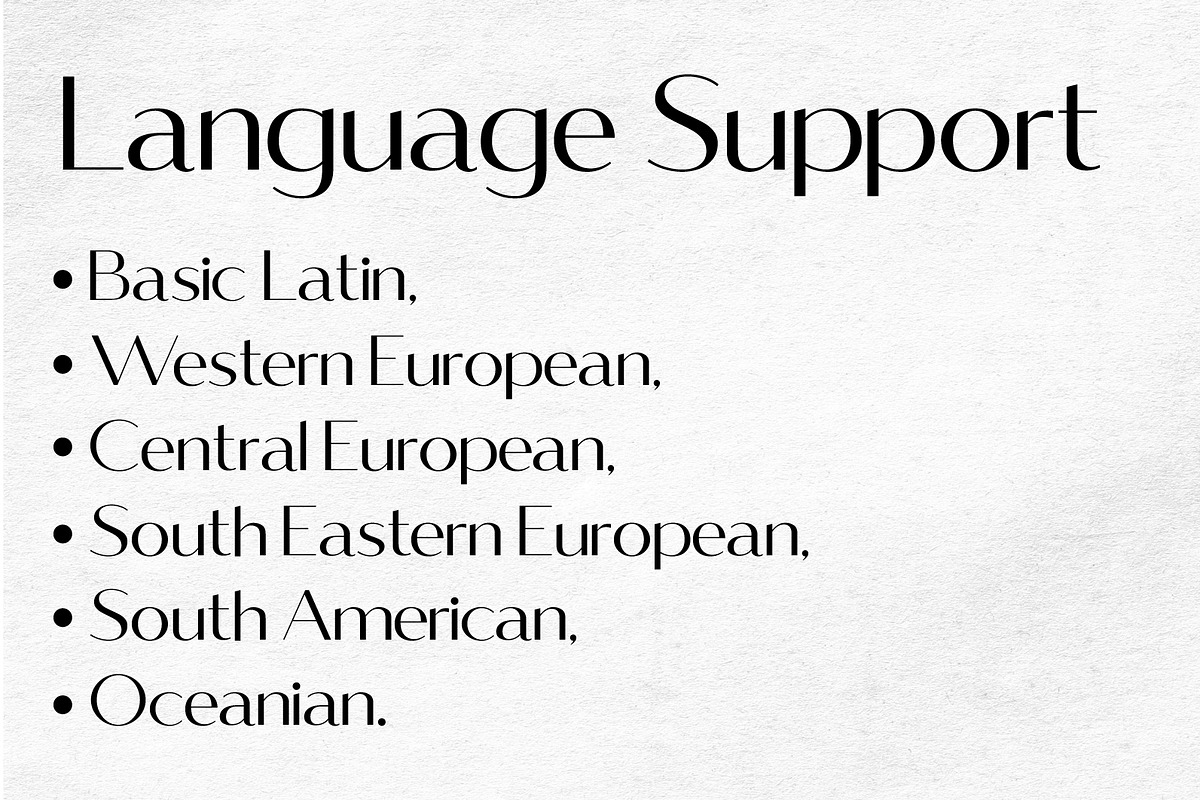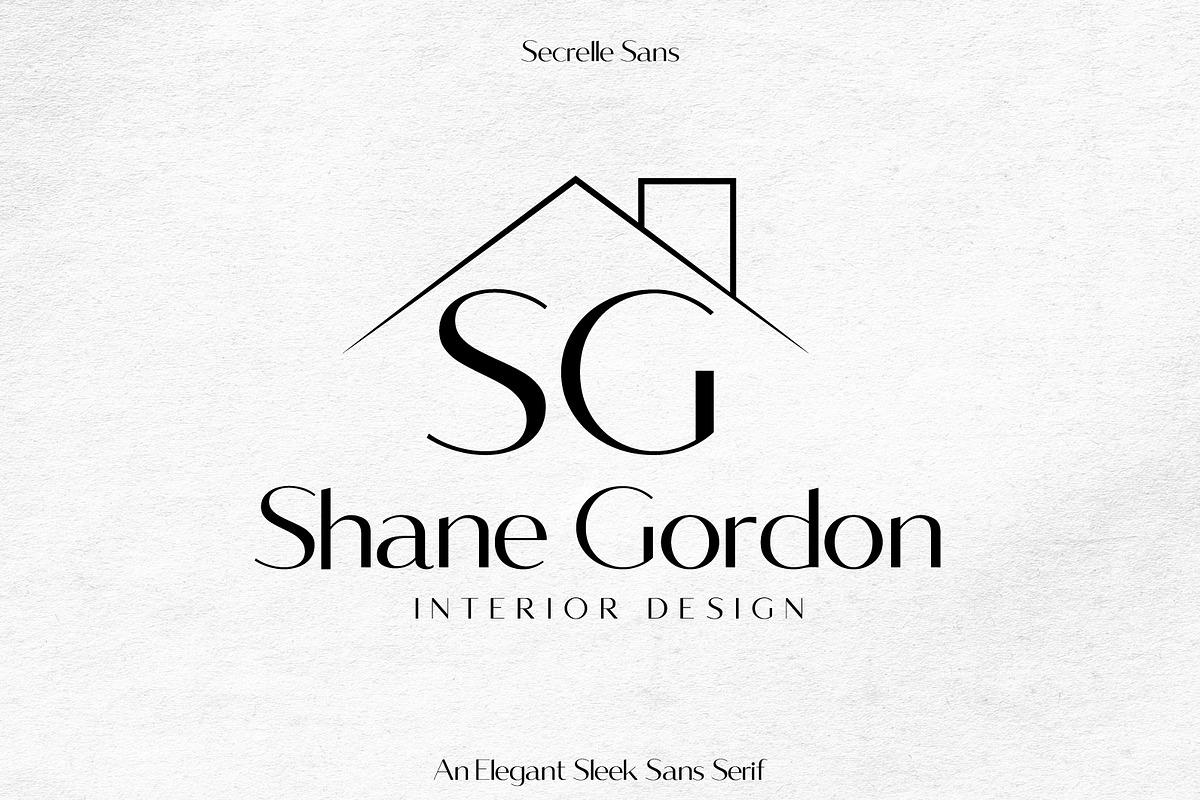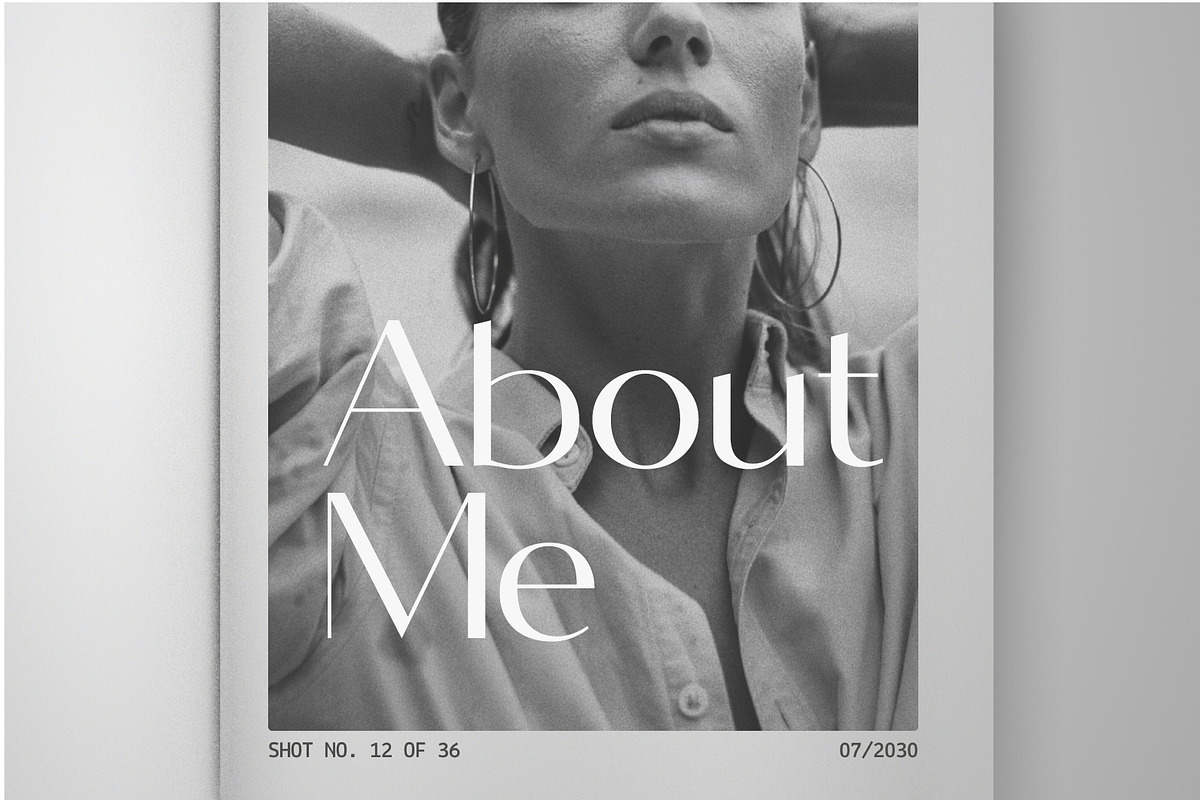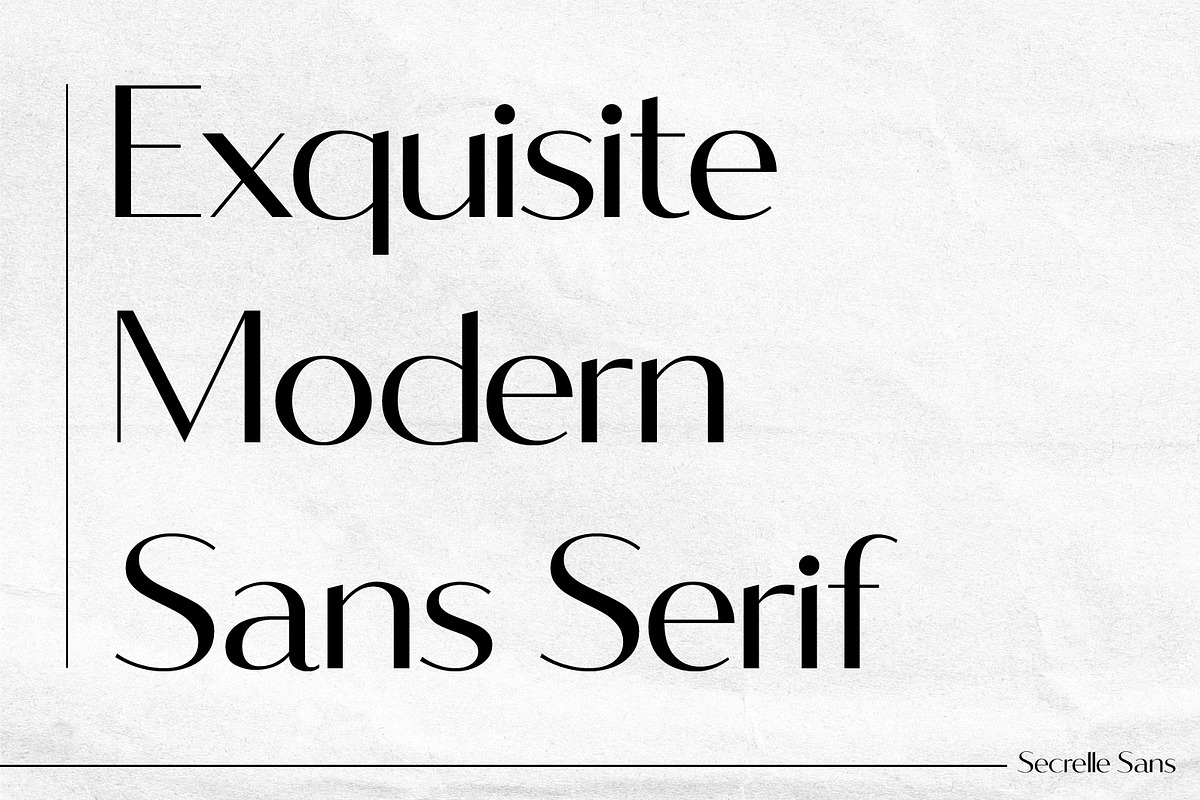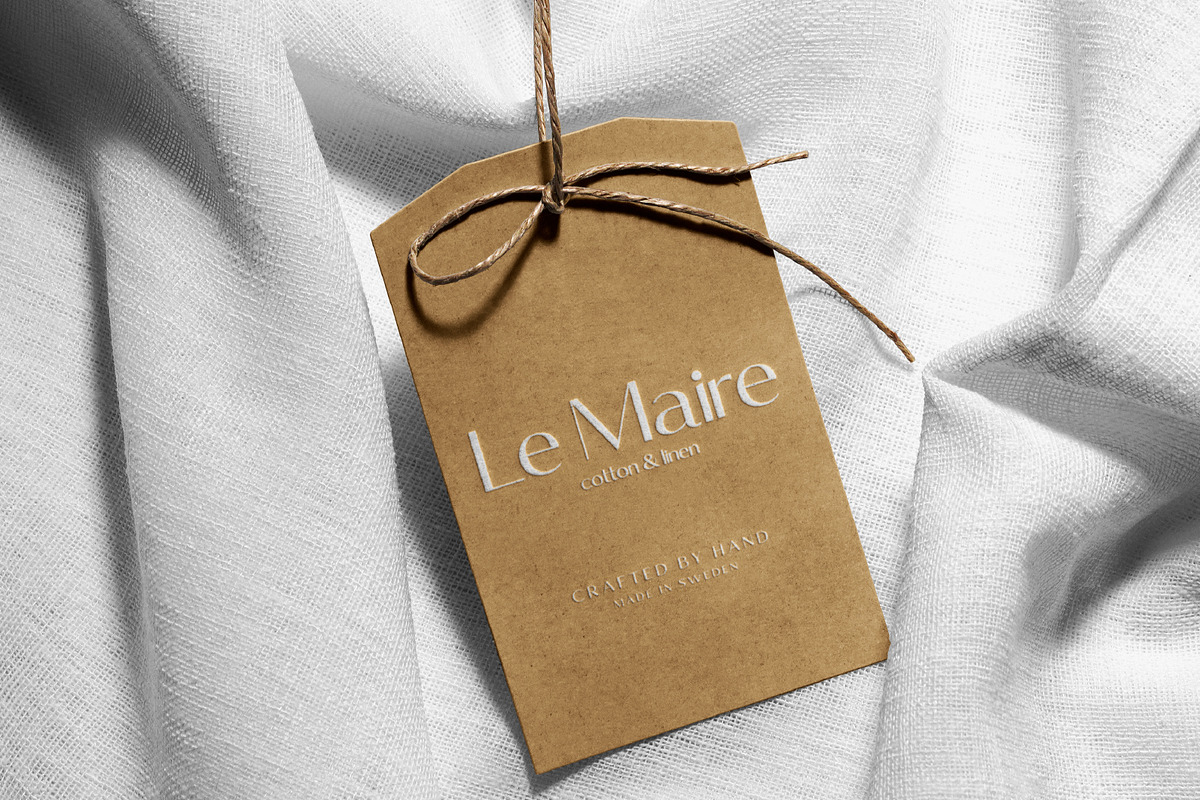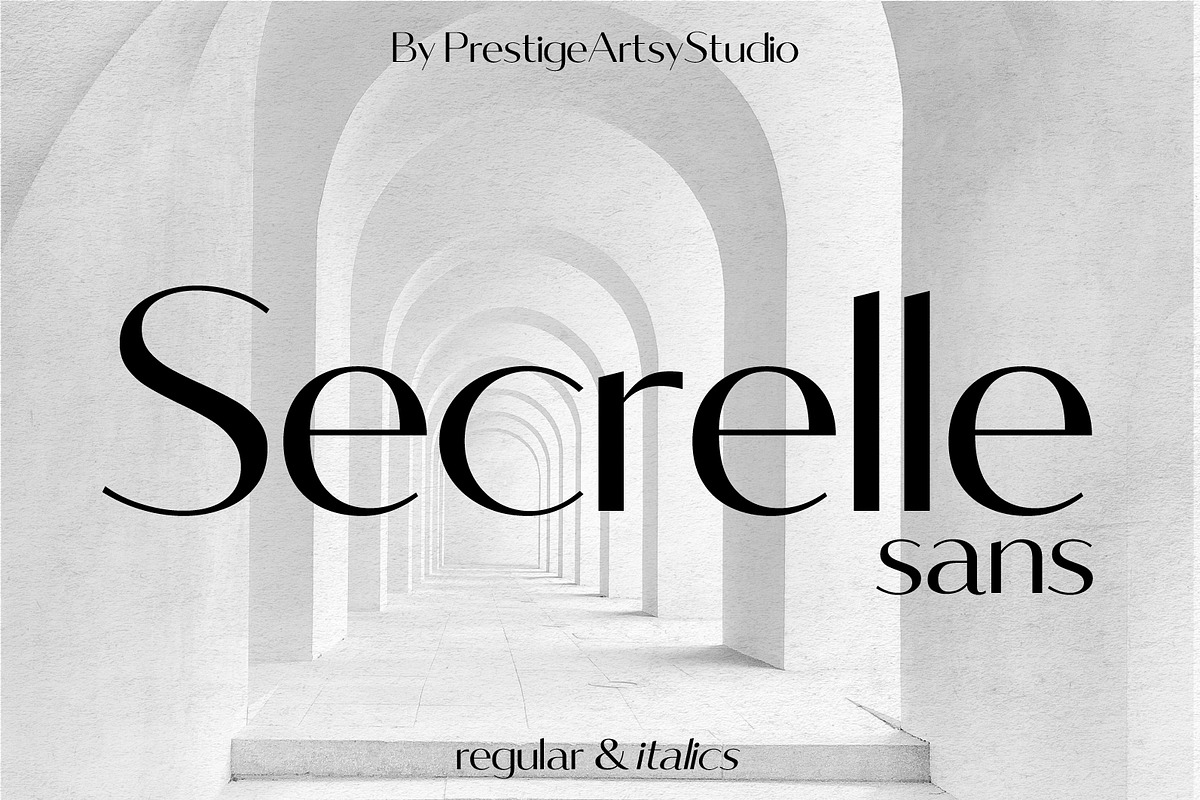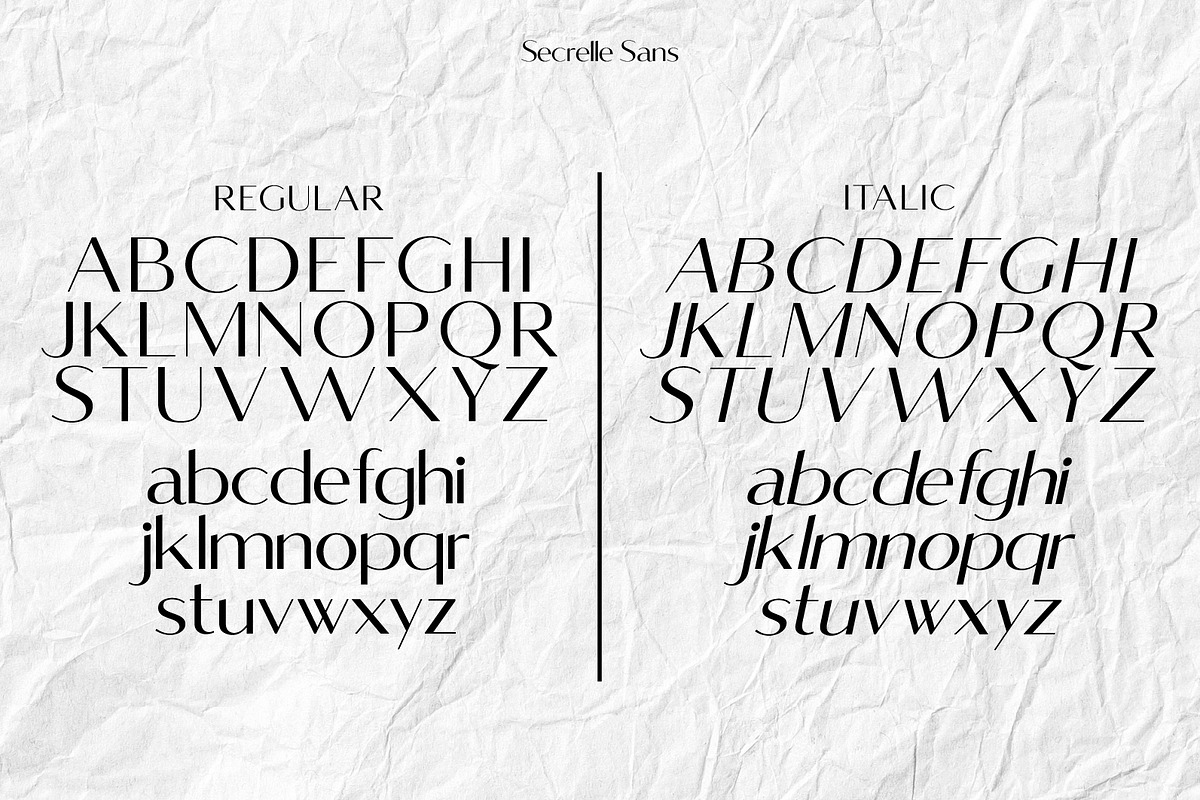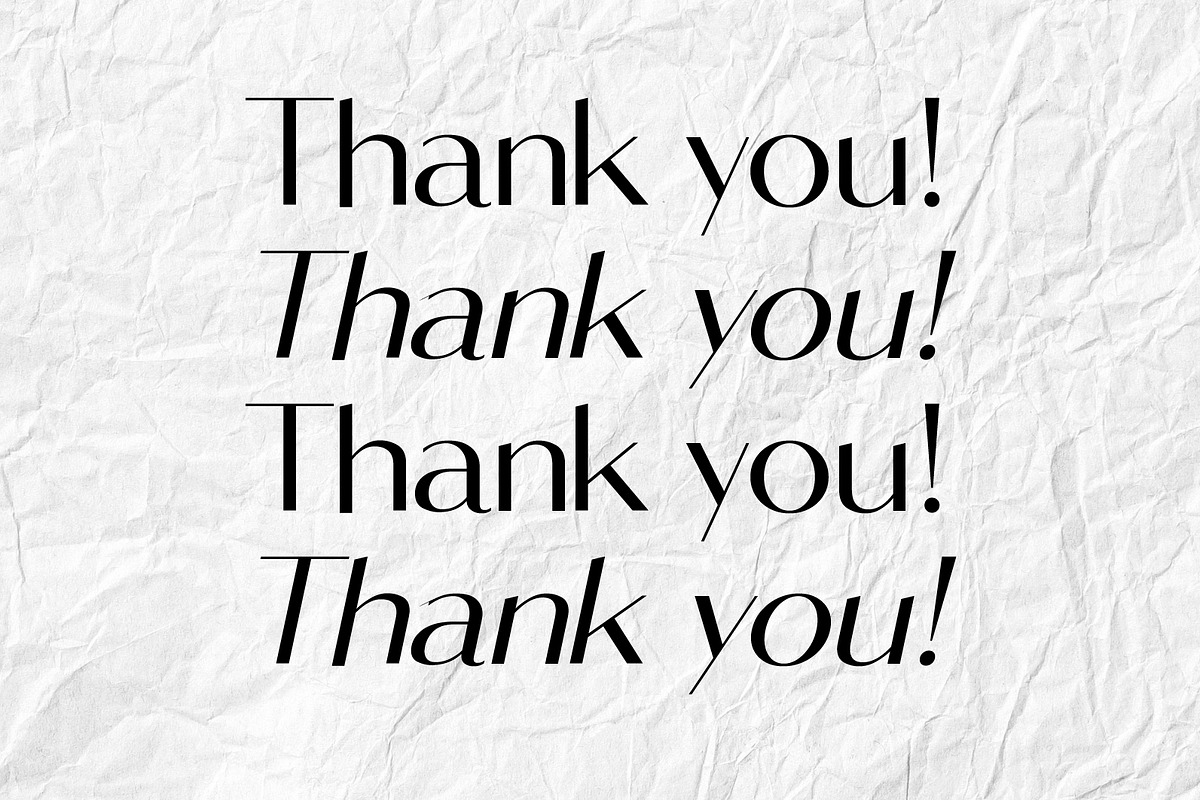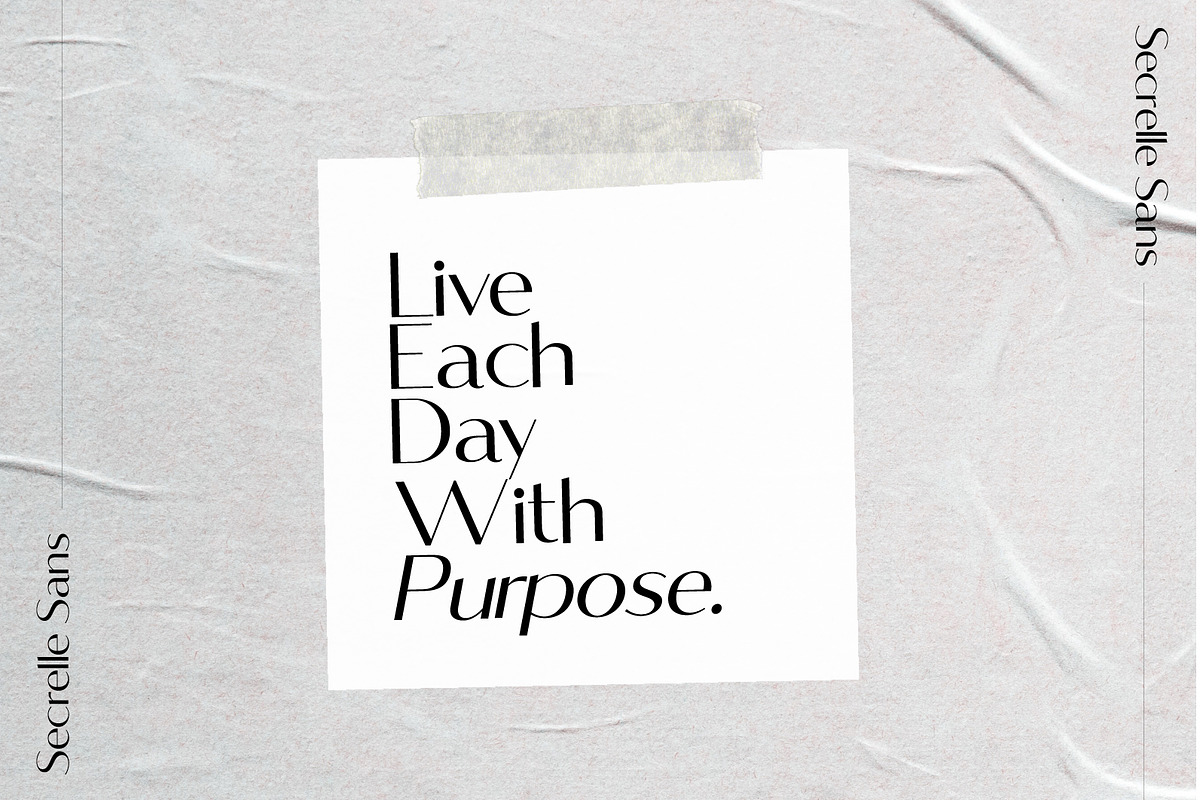
Secrelle Sans
Secrelle Sans is a refined modern sans-serif typeface crafted for elegance, clarity, and timeless visual impact. Designed with clean lines, balanced proportions, and subtle high-contrast details, it delivers a sophisticated yet contemporary feel suitable for premium design work.
This font family includes both Regular and Italic styles, allowing designers to create strong typographic hierarchy, emphasis, and editorial rhythm with ease.
Secrelle Sans is ideal for branding, logos, editorial design, fashion projects, web design, packaging, and modern visual identities. Its versatility makes it equally effective in digital and print environments.
✦ Features
- Uppercase & lowercase characters
- Matching italic style included
- Clean modern sans-serif design
- Elegant and minimal aesthetic
- Optimized for branding and editorial use
✦ Best Used For
- Logo design & brand identity
- Editorial & magazine layouts
- Fashion & beauty branding
- Website & UI design
- Social media graphics
- Packaging, labels & marketing materials
Secrelle Sans is a professional typeface designed to elevate modern design systems with clarity, balance, and refined simplicity.